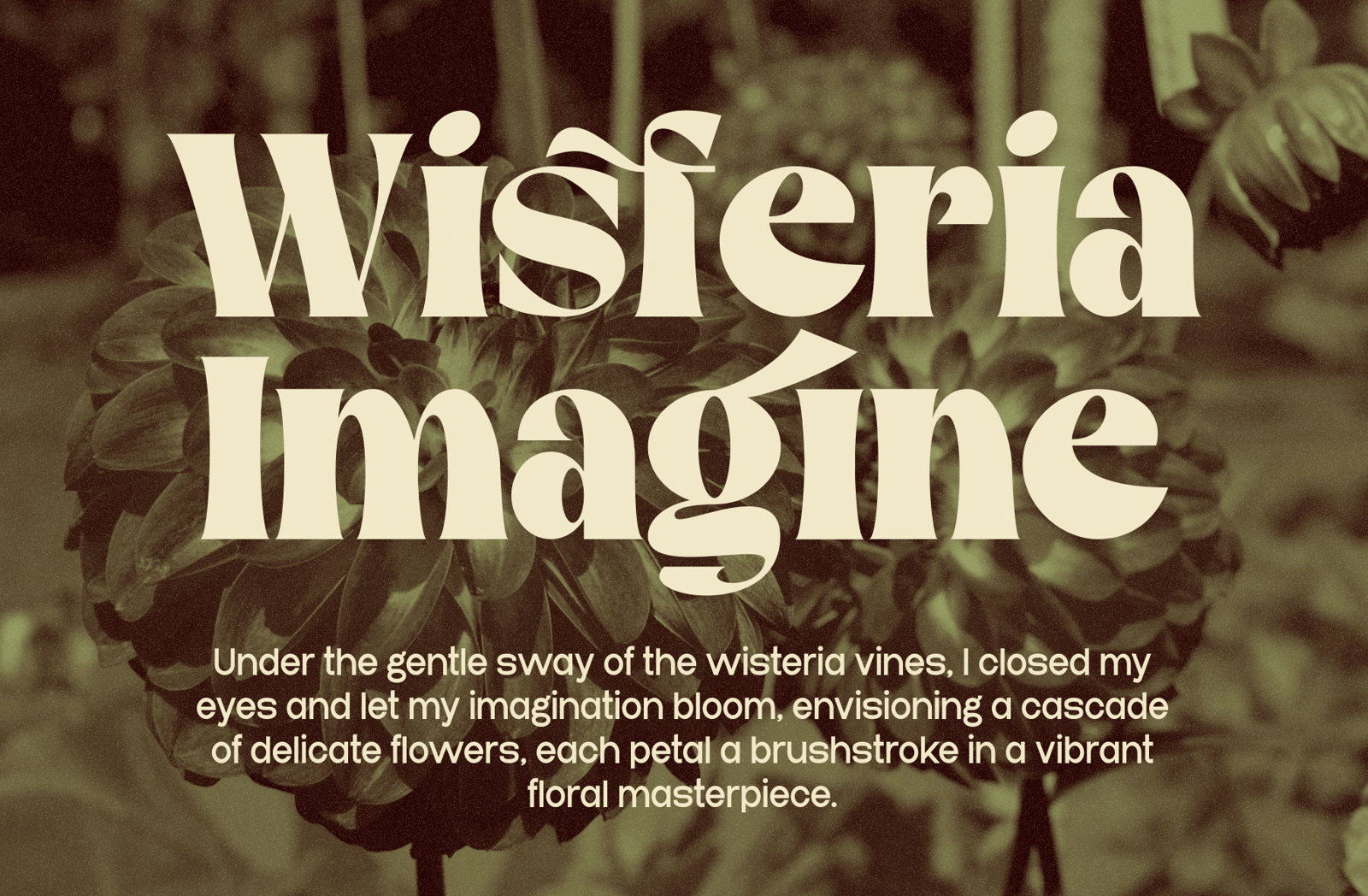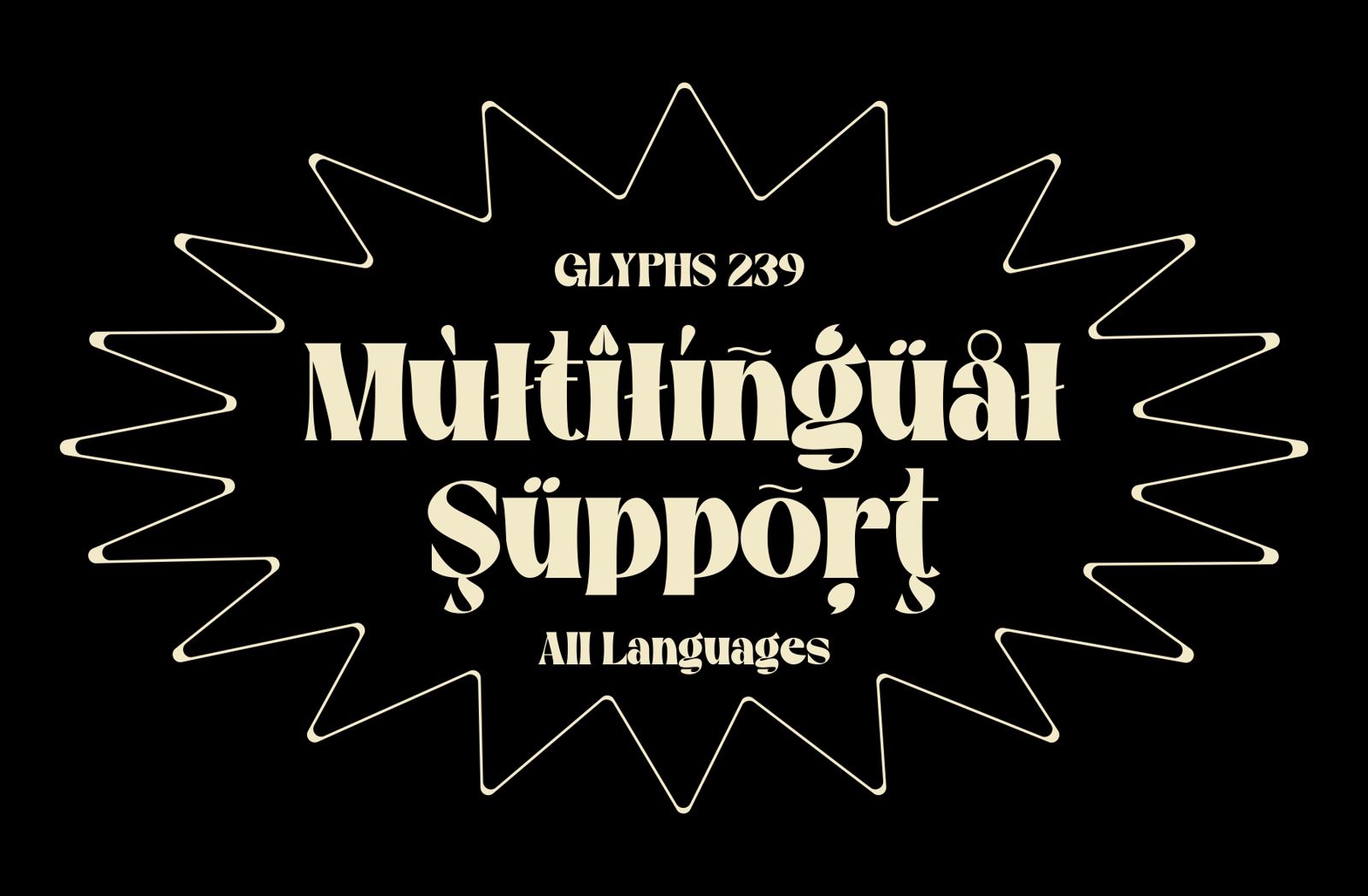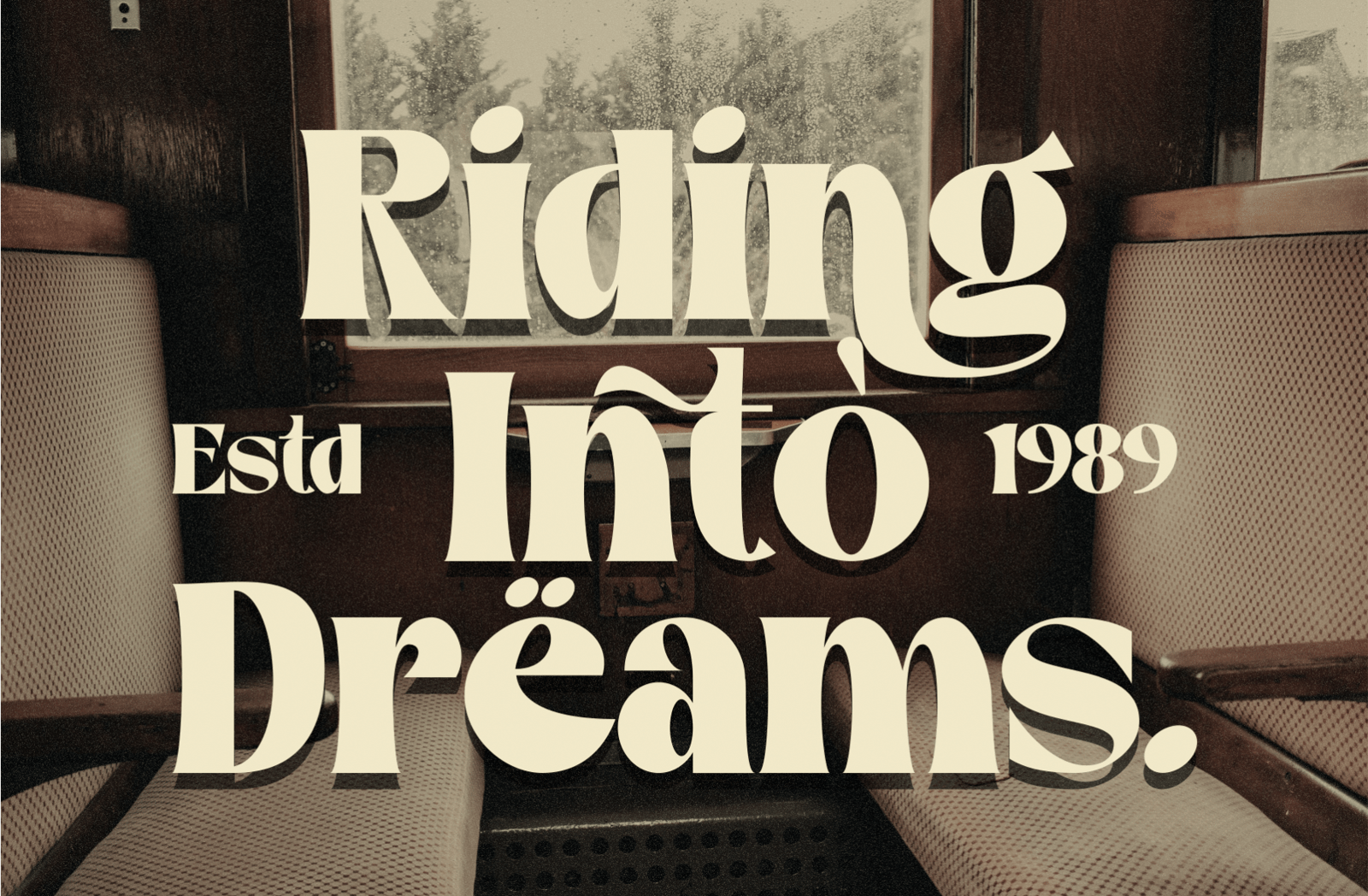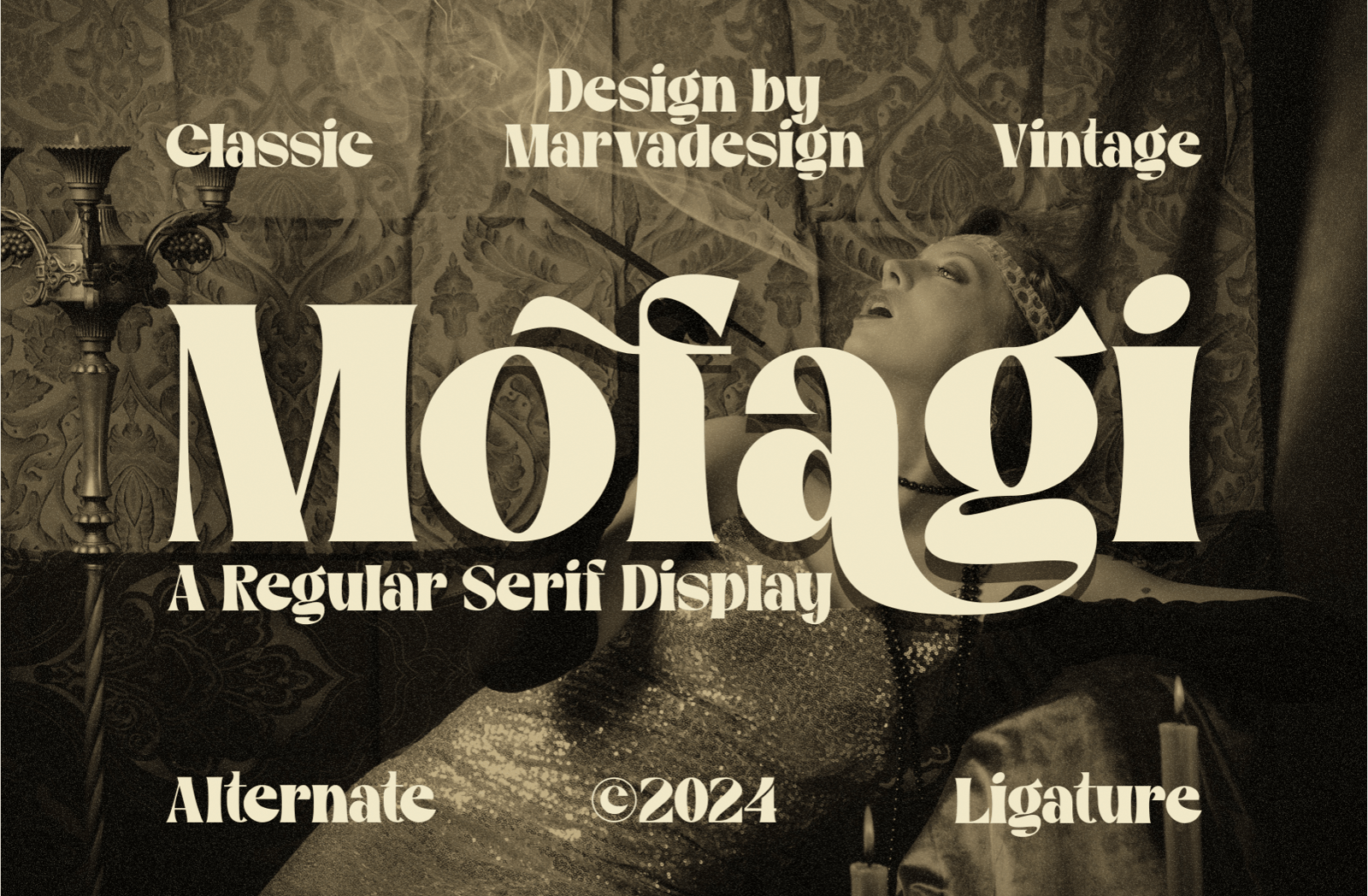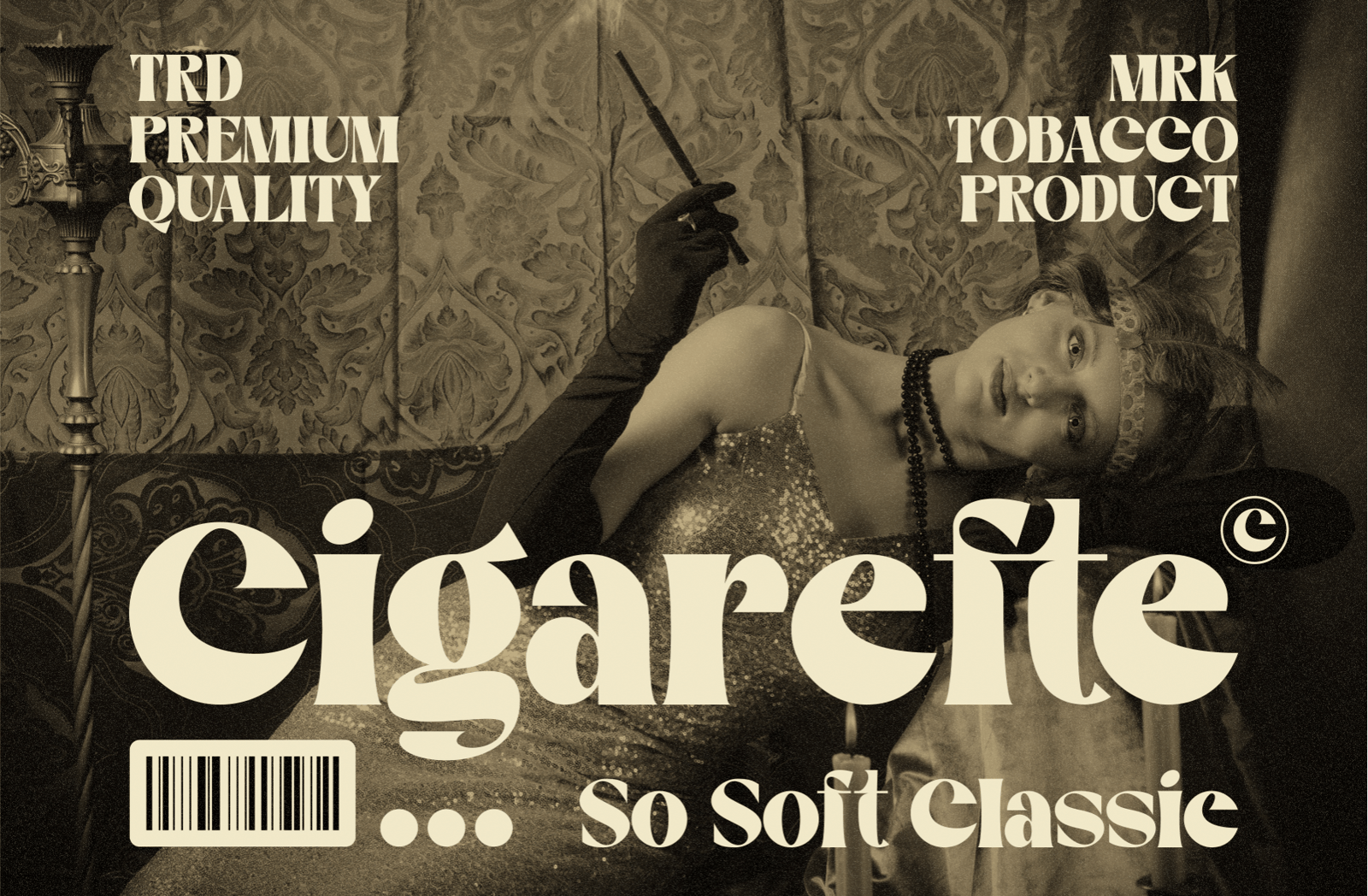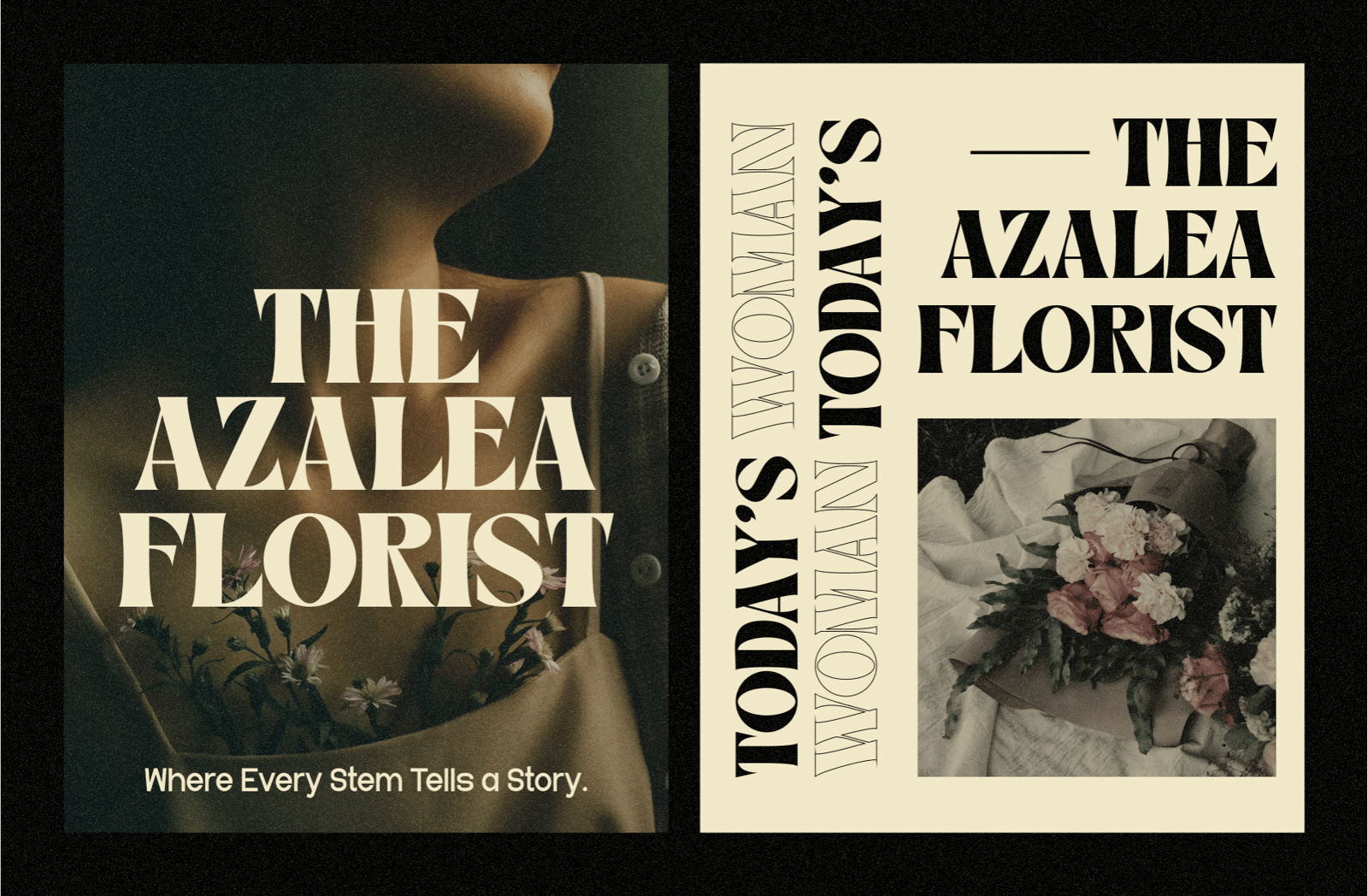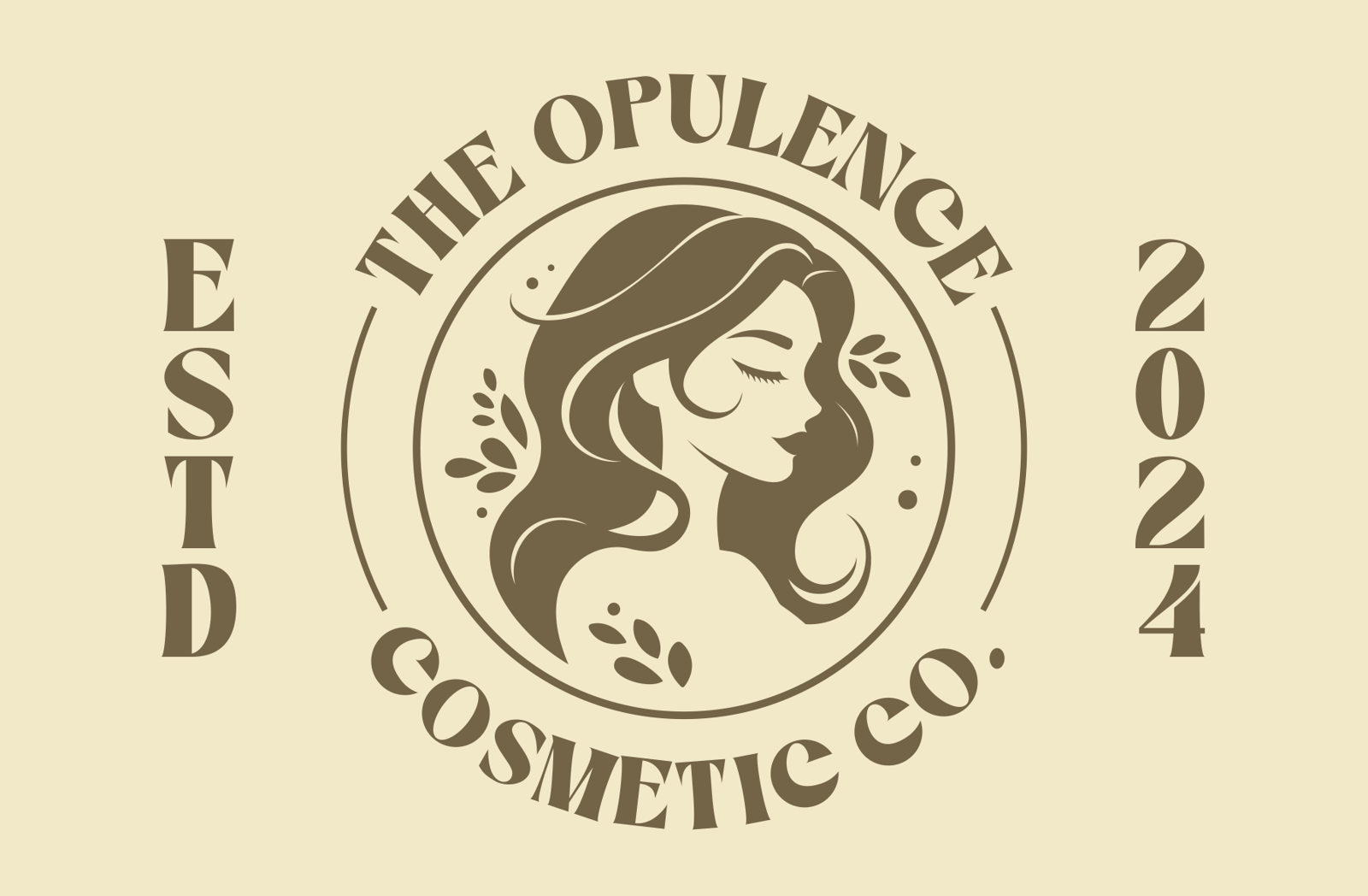
Mofagi Font
Introducing **Mofagi** typeface is a refined and elegant serif font that seamlessly blends classical sophistication with modern aesthetics. Its design is characterized by a striking contrast between thick and thin strokes, giving it a bold yet graceful presence. The letterforms exhibit a balance of sharp, angular serifs and smooth, flowing curves, which create a visually captivating and dynamic effect.
Mofagi’s distinctively high-contrast style makes it particularly suitable for upscale branding, editorial layouts, luxury packaging, and artistic typography. The uppercase letters are commanding and sophisticated, ideal for making a statement in headlines or logotypes. Meanwhile, the overall structure of the typeface maintains a sense of fluidity, allowing it to adapt well to various design applications.
* Uppercase
* Lowercase
* Multilingual
* Ligature
* Alternate